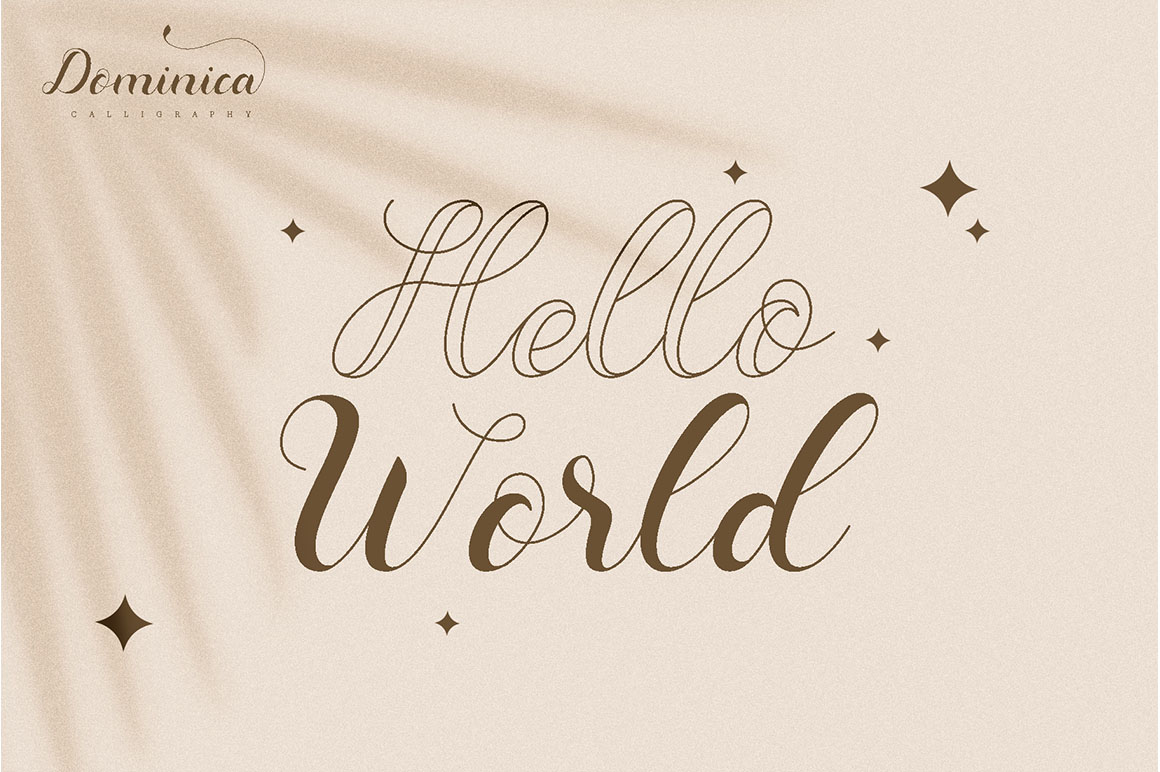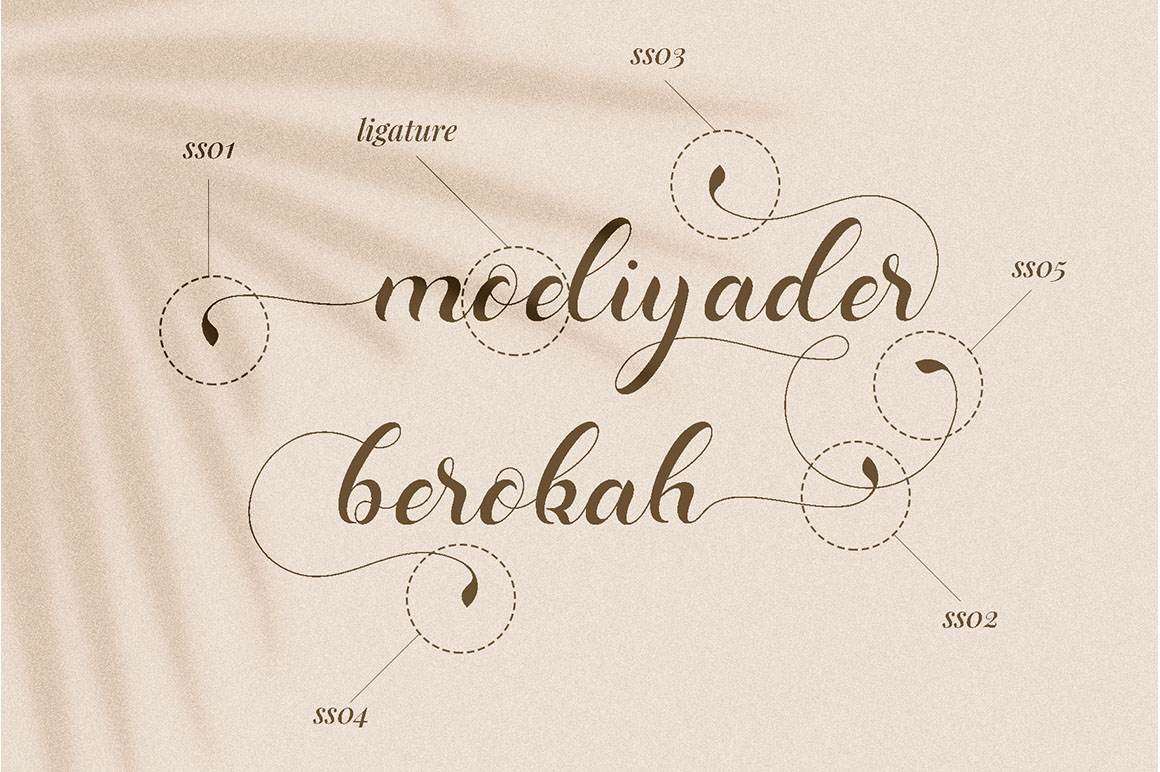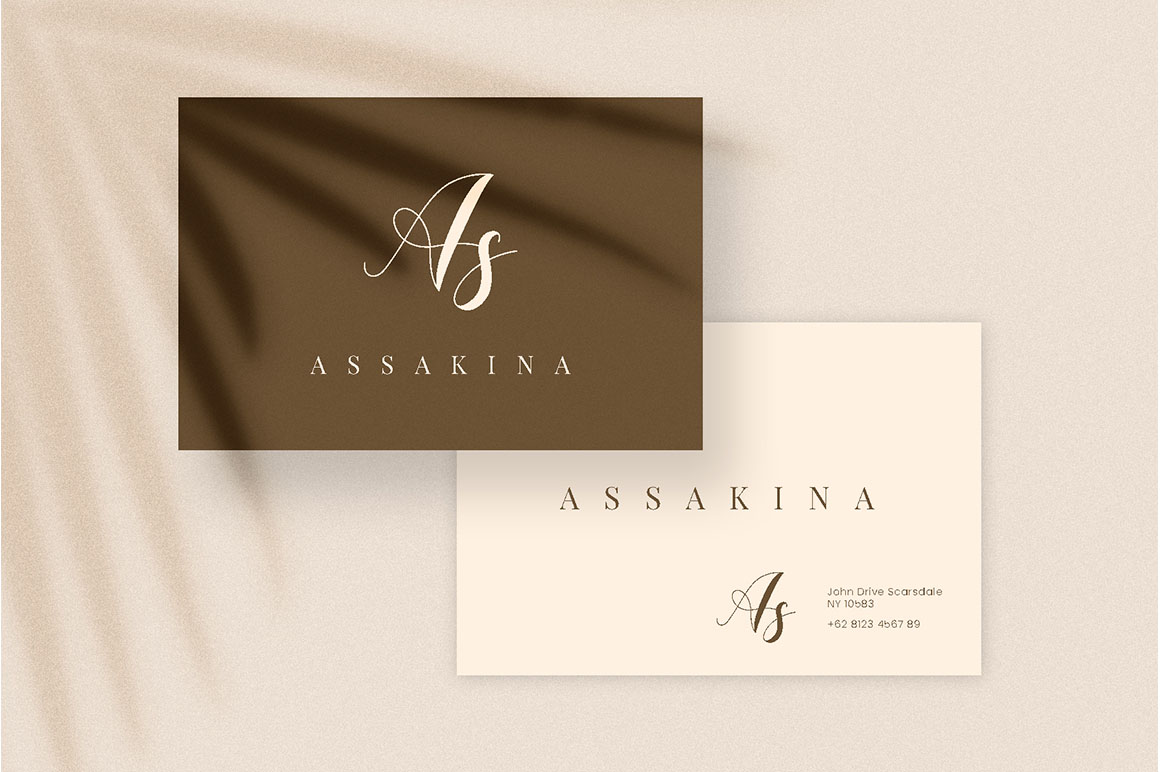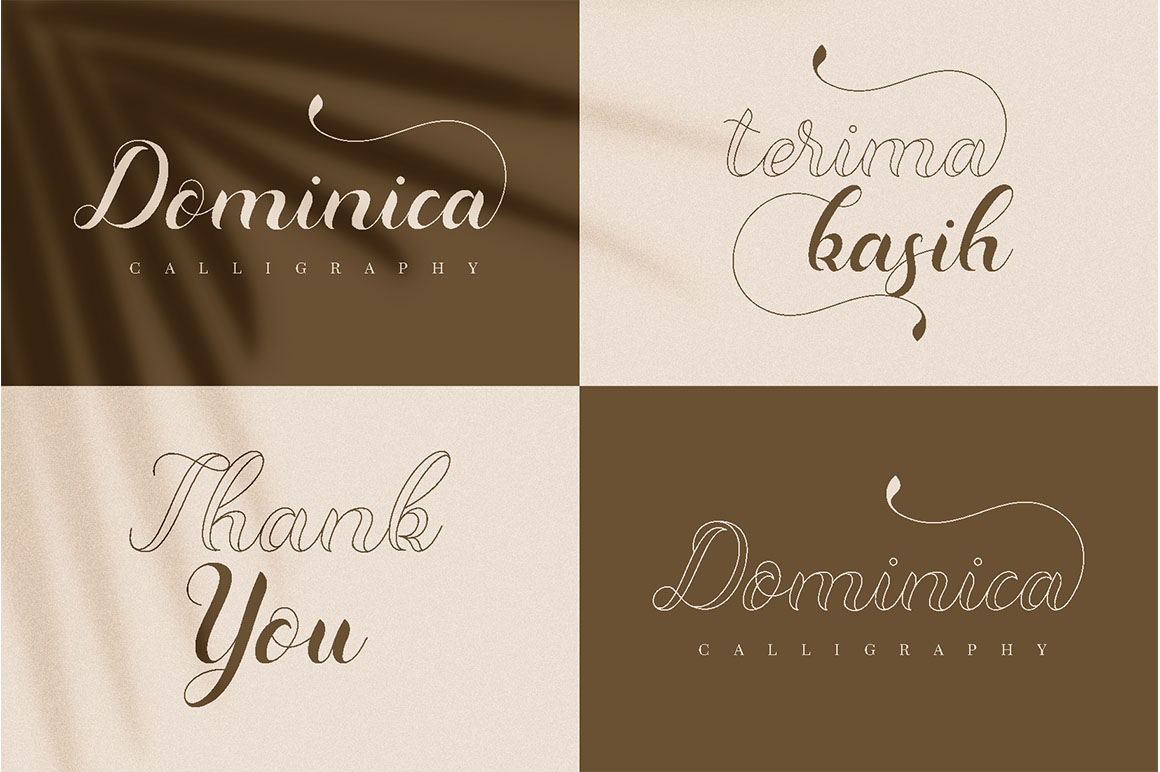
Dominica Calligraphy Font
This is a chic, refined script font that emanates sophistication and elegance. Its stylish alternates and ligatures make this font the perfect match for any project.